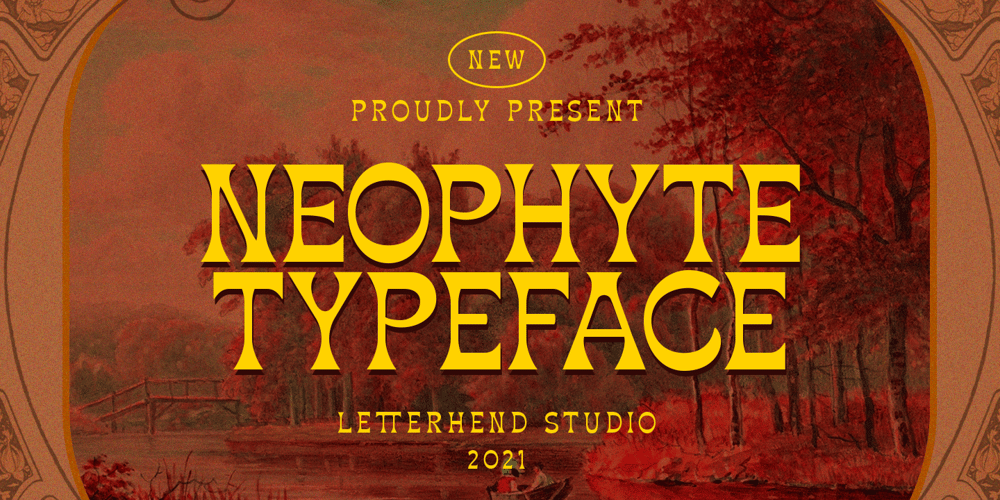
Neophyte Font Family was designed by Hendry Juanda and published by Letterhend. Neophyte contains 1 styles and family package options. Introducing our latest display typeface named Neophyte Typeface. A reverse contrast serif with classy and classic look with vintage feel, inspired by 60s and 70s signages. This font perfectly made to be applied especially in logo, and the other various formal forms such as invitations, labels, logos, magazines, books, greeting / wedding cards, packaging, fashion, make up, stationery, novels, labels or any type of advertising purpose.Features : uppercase and lowercase numbers and punctuation multilingual & stylistic alteranate PUA encoded We highly recommend using a program that supports OpenType features and Glyphs panels like many of Adobe apps and Corel Draw, so you can see and access all Glyph variations.